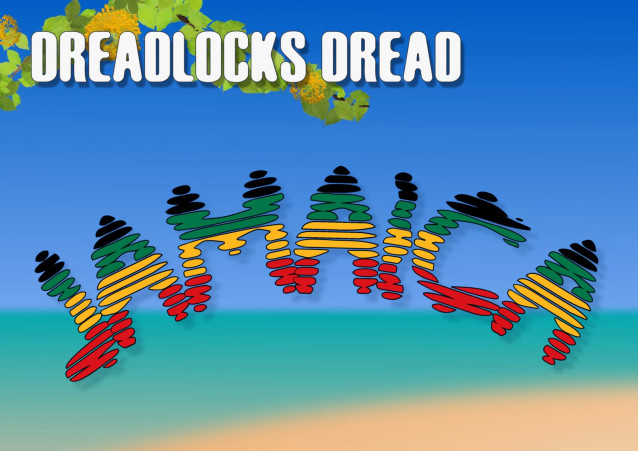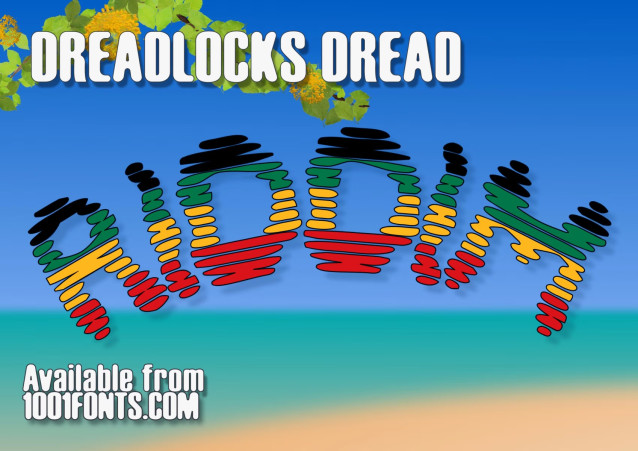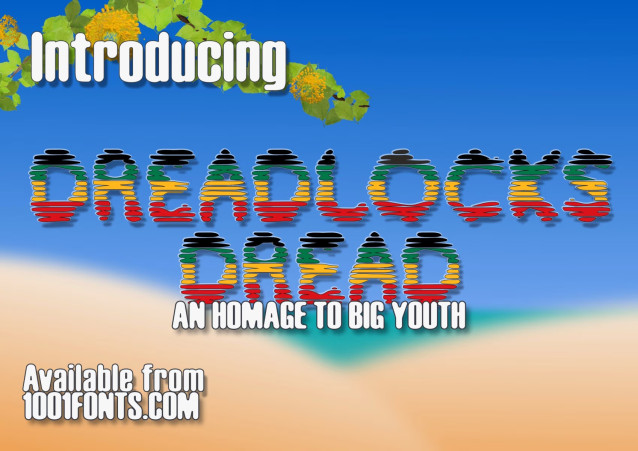
Dreadlocks Dread Font
An homage to Big Youth, the inspirational Jamaican reggae artist/deejay of the 1970s-80s with his unique ‘toasting’ style of rap.